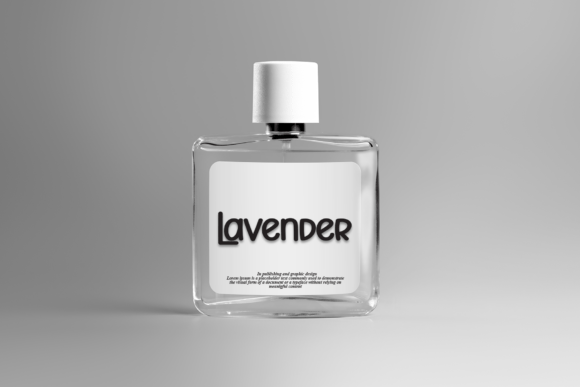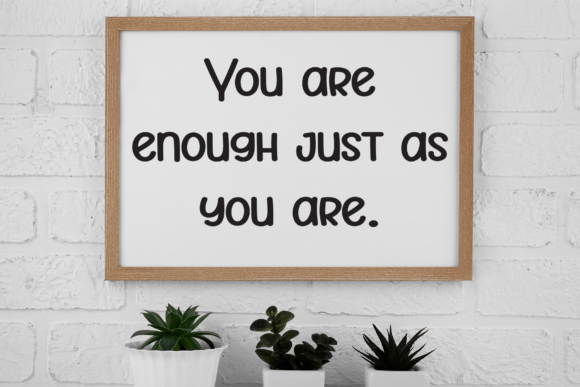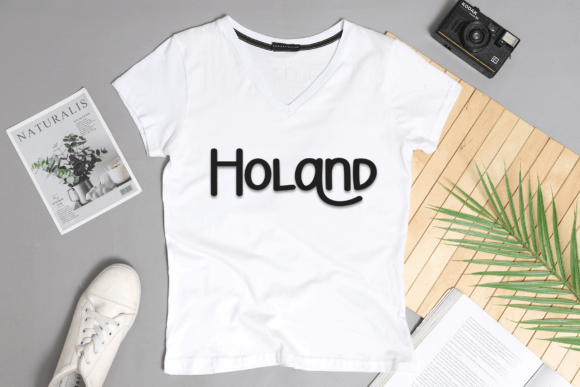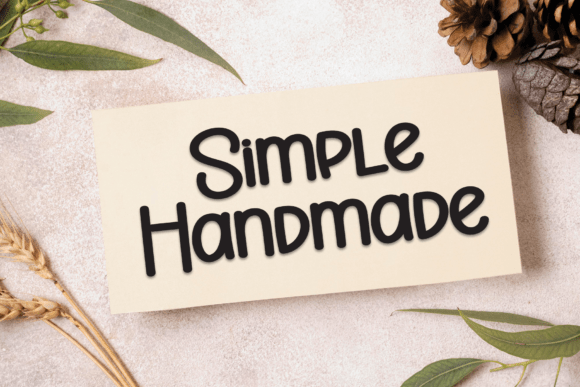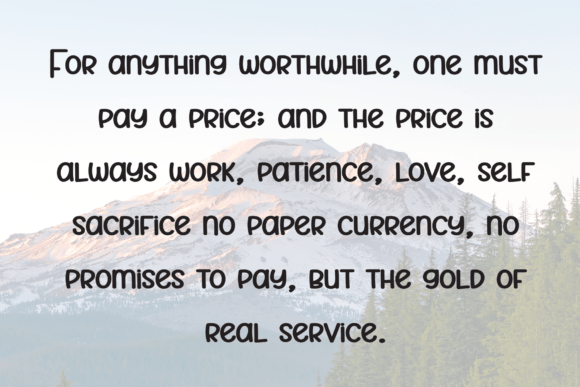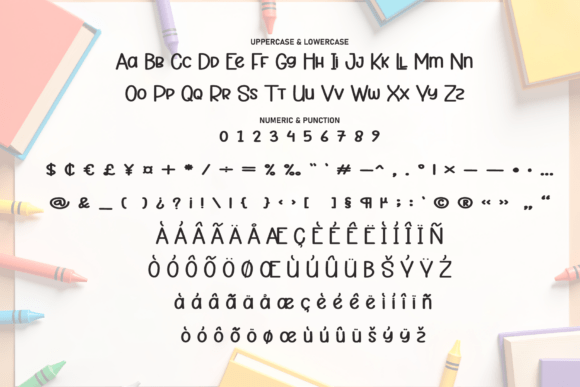
Introducing Back School Font: The Perfect Blend of Clarity and Relaxed Style
In the world of typography, fonts play a crucial role in conveying the tone and personality of a brand or design. For designers and crafters looking for a font that exudes a modern yet laid-back vibe, Back School Font is an excellent choice. This neat and casual display font is designed to bring clarity and approachability to various design projects, making it perfect for headlines, posters, packaging, and branding.
Clean Lines and Friendly Letterforms
One of the standout features of Back School Font is its clean lines and friendly letterforms. The font’s design is characterized by its balanced structure, which ensures that each letter is easy to read and understand. The clean lines also give the font a crisp and modern look, making it perfect for designs that require a fresh and contemporary feel.
The friendly letterforms of Back School Font are another key aspect of its design. The font’s letters are crafted to be approachable and inviting, which makes it ideal for designs that aim to connect with the audience on a personal level. Whether you’re working on a branding project, a poster, or a packaging design, Back School Font’s friendly letterforms will help you create a design that feels warm and welcoming.
Perfect for Headlines, Posters, and Branding
Back School Font is a versatile font that can be used in a variety of design projects. Its clean lines and friendly letterforms make it perfect for headlines, posters, and branding designs that require a modern yet laid-back feel. The font’s balanced structure and playful energy ensure that it brings personality to any project without overwhelming the message.
For designers working on branding projects, Back School Font is an excellent choice. The font’s modern yet approachable design makes it perfect for creating a brand identity that feels fresh and contemporary. The font’s clean lines and friendly letterforms also ensure that it is easy to read and understand, which is essential for creating a strong brand identity.
Ideal for Designs that Call for Both Style and Readability
Back School Font is designed to bring style and readability to various design projects. The font’s clean lines and balanced structure ensure that it is easy to read and understand, making it perfect for designs that require a high level of readability. At the same time, the font’s playful energy and friendly letterforms add a touch of style and personality to any design.
For designers and crafters, finding a font that balances style and readability can be a challenge. Back School Font solves this problem by providing a font that is both stylish and easy to read. Whether you’re working on a design project that requires a high level of readability or one that needs a touch of personality, Back School Font is an excellent choice.
Key Features of Back School Font
- Clean lines and friendly letterforms: Back School Font is designed with clean lines and friendly letterforms that make it perfect for headlines, posters, and branding designs.
- Balanced structure: The font’s balanced structure ensures that it is easy to read and understand, making it perfect for designs that require a high level of readability.
- Playful energy: Back School Font has a playful energy that brings personality to any design project.
- Modern yet laid-back vibe: The font’s modern yet laid-back design makes it perfect for designs that require a fresh and contemporary feel.
In conclusion, Back School Font is a versatile and stylish font that is perfect for designers and crafters looking for a modern yet laid-back vibe. Its clean lines, friendly letterforms, and balanced structure make it ideal for headlines, posters, packaging, and branding designs. With its playful energy and high level of readability, Back School Font is an excellent choice for any design project that requires both style and readability.
Whether you’re working on a branding project, a poster, or a packaging design, Back School Font is a great choice. Its unique blend of clarity and relaxed style ensures that it brings personality to any design project without overwhelming the message. So why not give Back School Font a try and see how it can elevate your design projects?